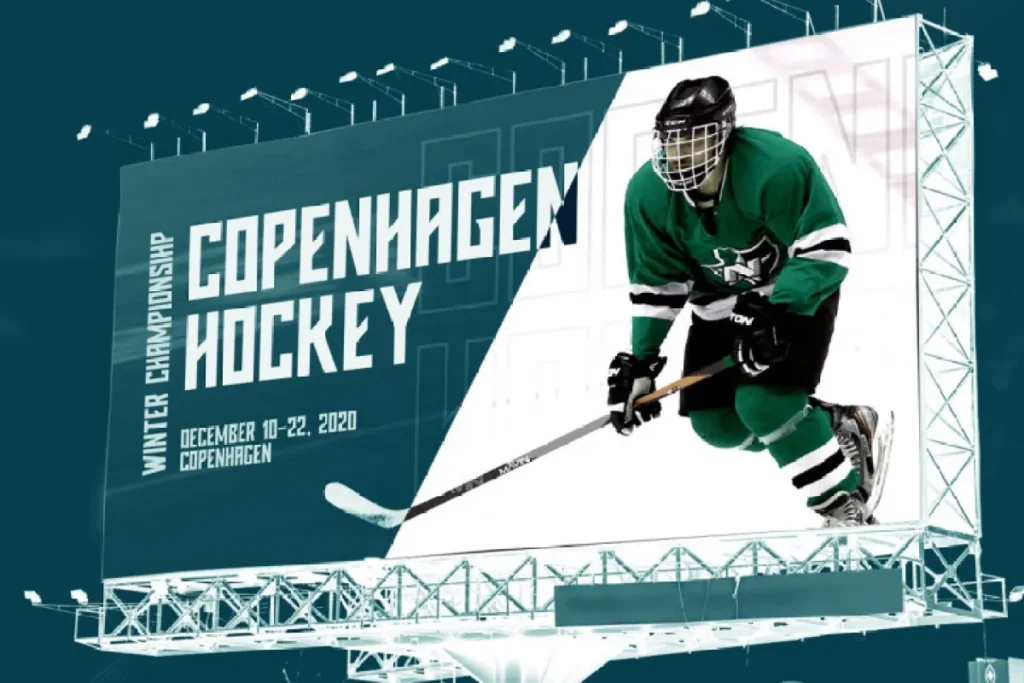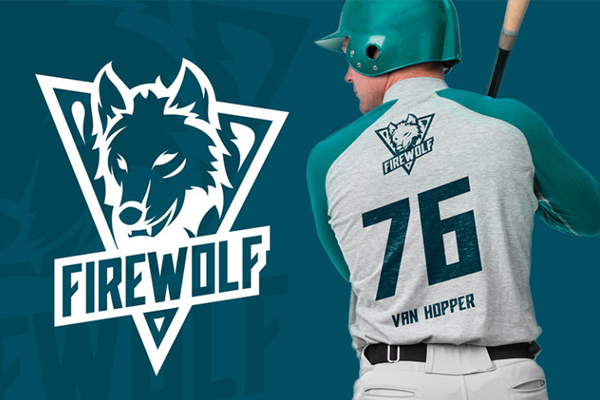
Sporten Font is a modern Sans Serif font designed with strength, clarity, and precision. Its sleek geometric structure makes it perfect for projects that need a bold and professional look. Whether for digital or print use, this typeface ensures every word stands out with confidence and style.
Designed specifically as a sports font, Sporten captures the energy and competitiveness of athletic branding. Its dynamic shapes and solid strokes make it ideal for team logos, jersey numbers, event posters, and fitness-related designs. This typeface brings a sense of motion and determination to any visual concept.
Sporten also includes uppercase and lowercase letters, numerals, punctuation, and multilingual support, offering complete flexibility for various design needs. With multiple character variations, this font allows creative freedom while maintaining visual harmony and professionalism.